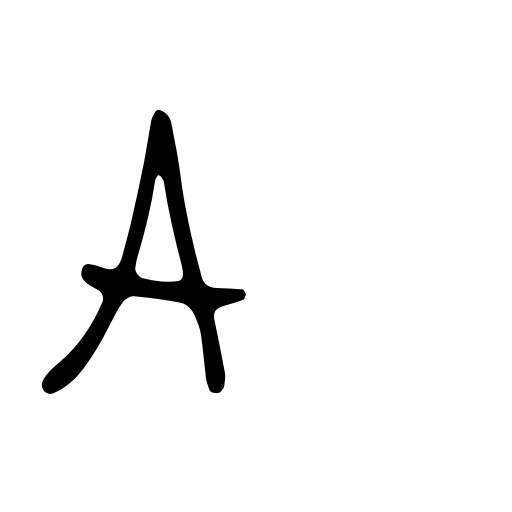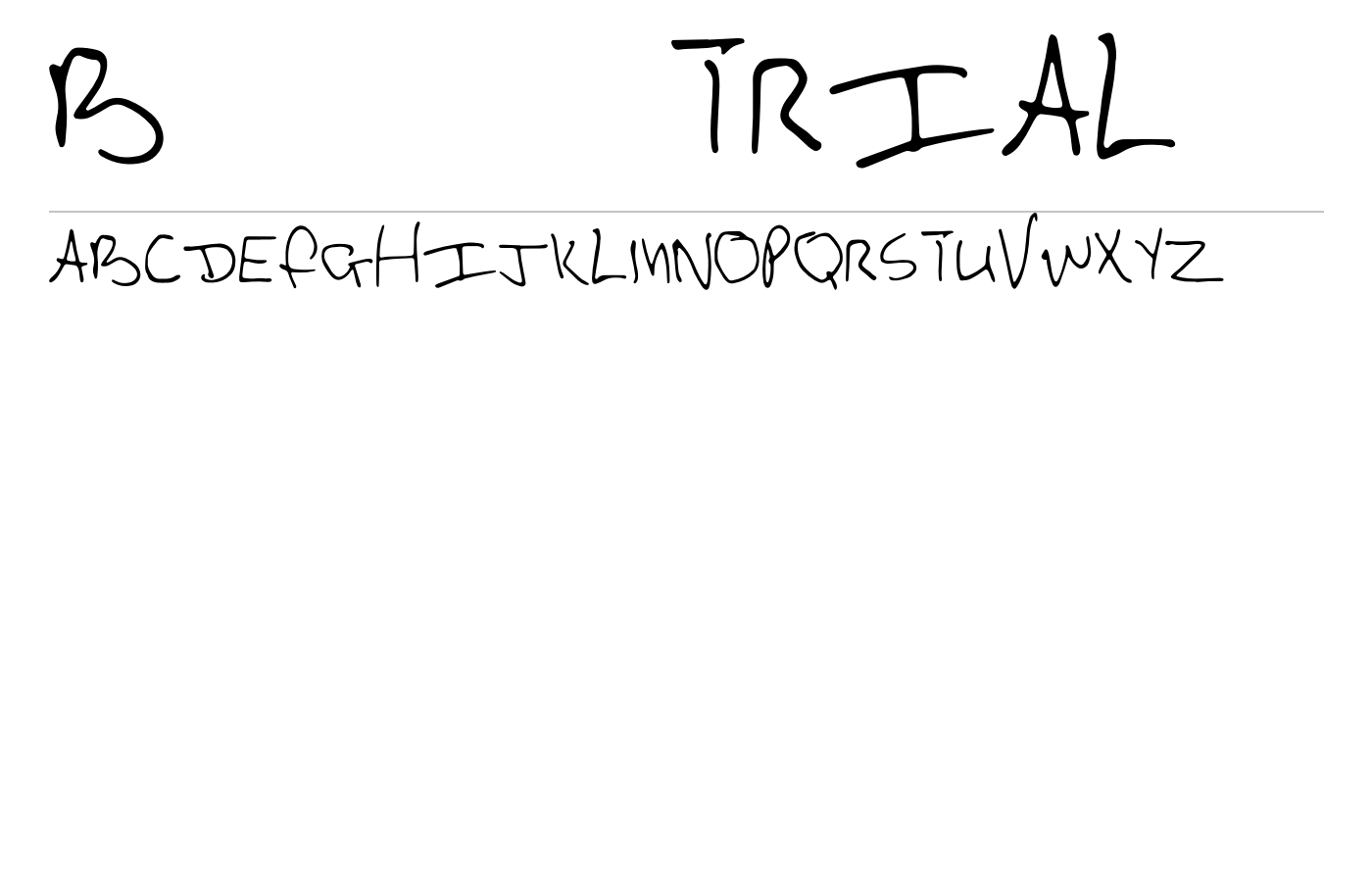
Bowies TRIAL is a casual, hand-drawn sans serif font with an irregular, playful style that mimics natural handwriting. Its thin, uneven strokes and quirky letterforms give it a personal, informal feel, making it perfect for creative projects, youth-oriented branding, or any design seeking a relaxed and approachable vibe. This font works best in headlines, logos, and artistic designs where a unique, handcrafted touch is desired.
Bowies TRIAL Font
About Bowies TRIAL Font